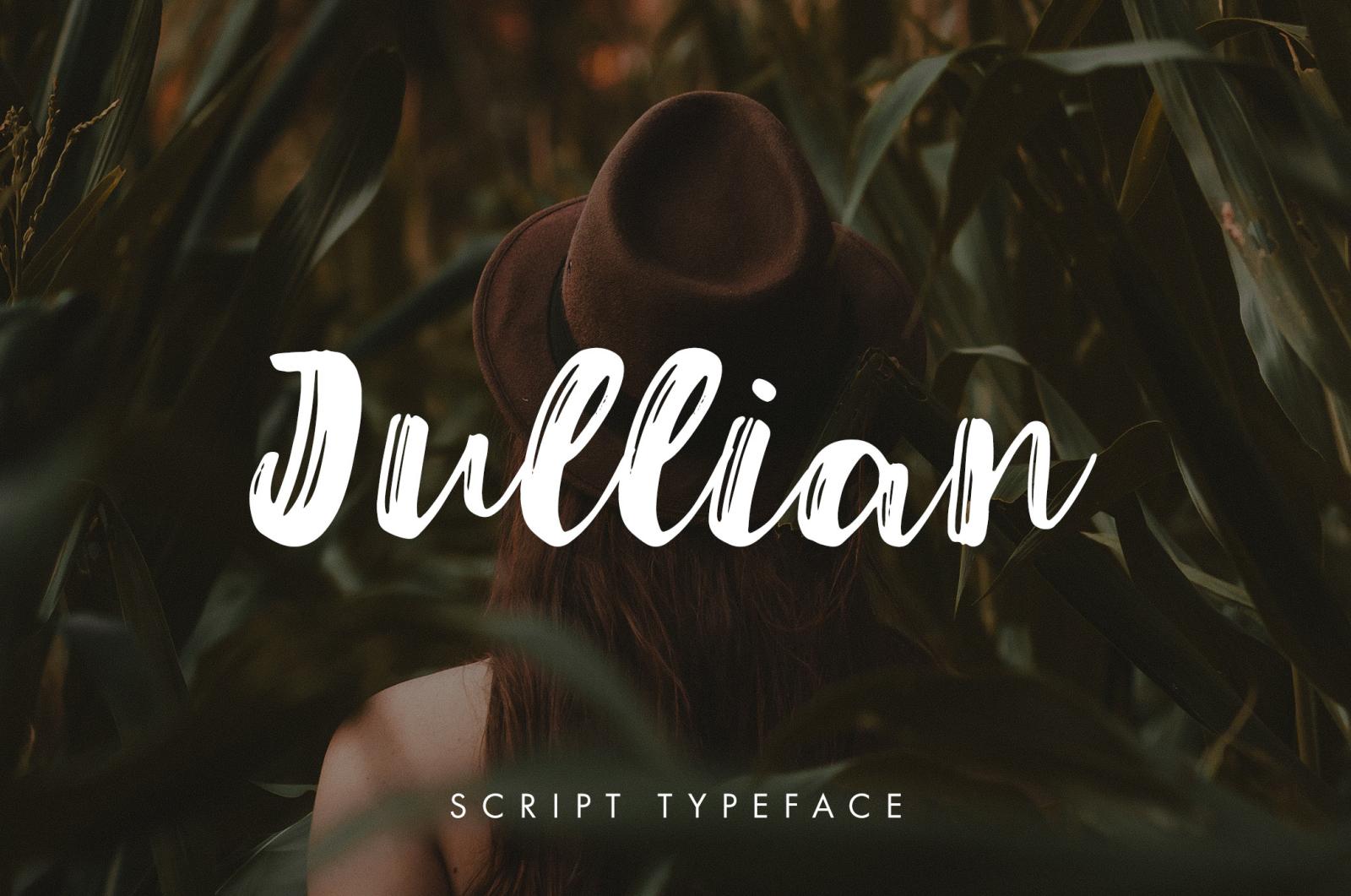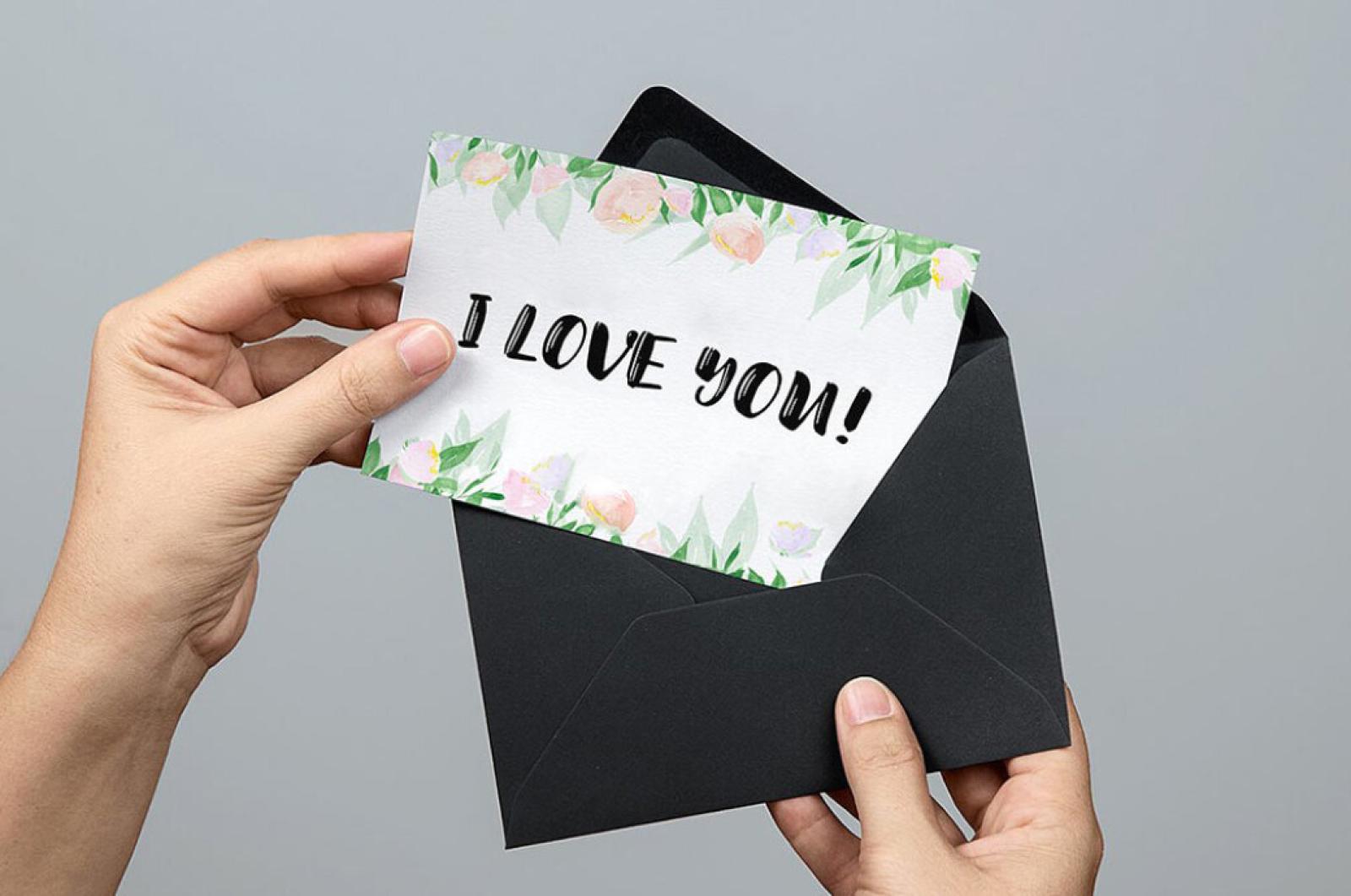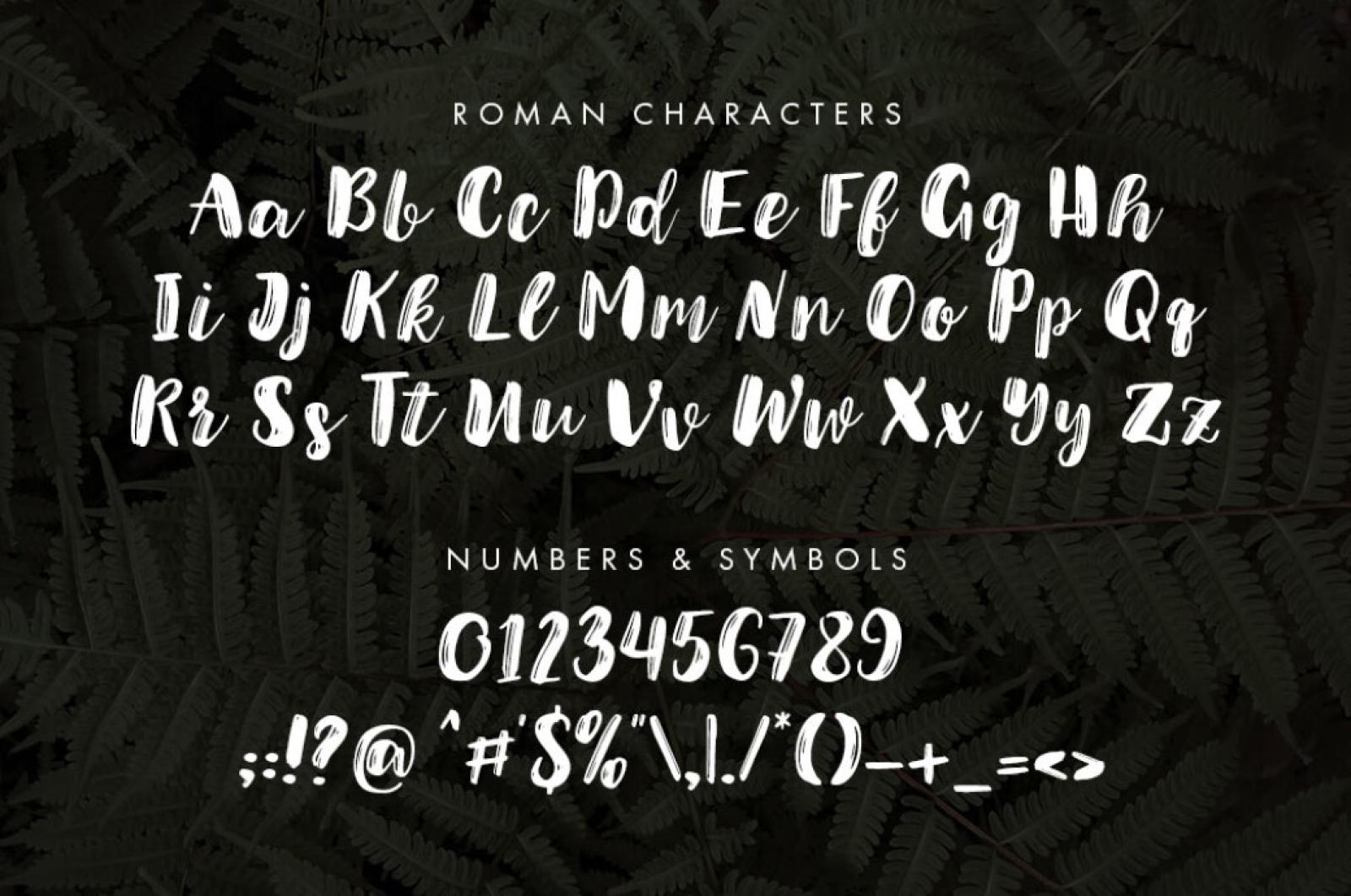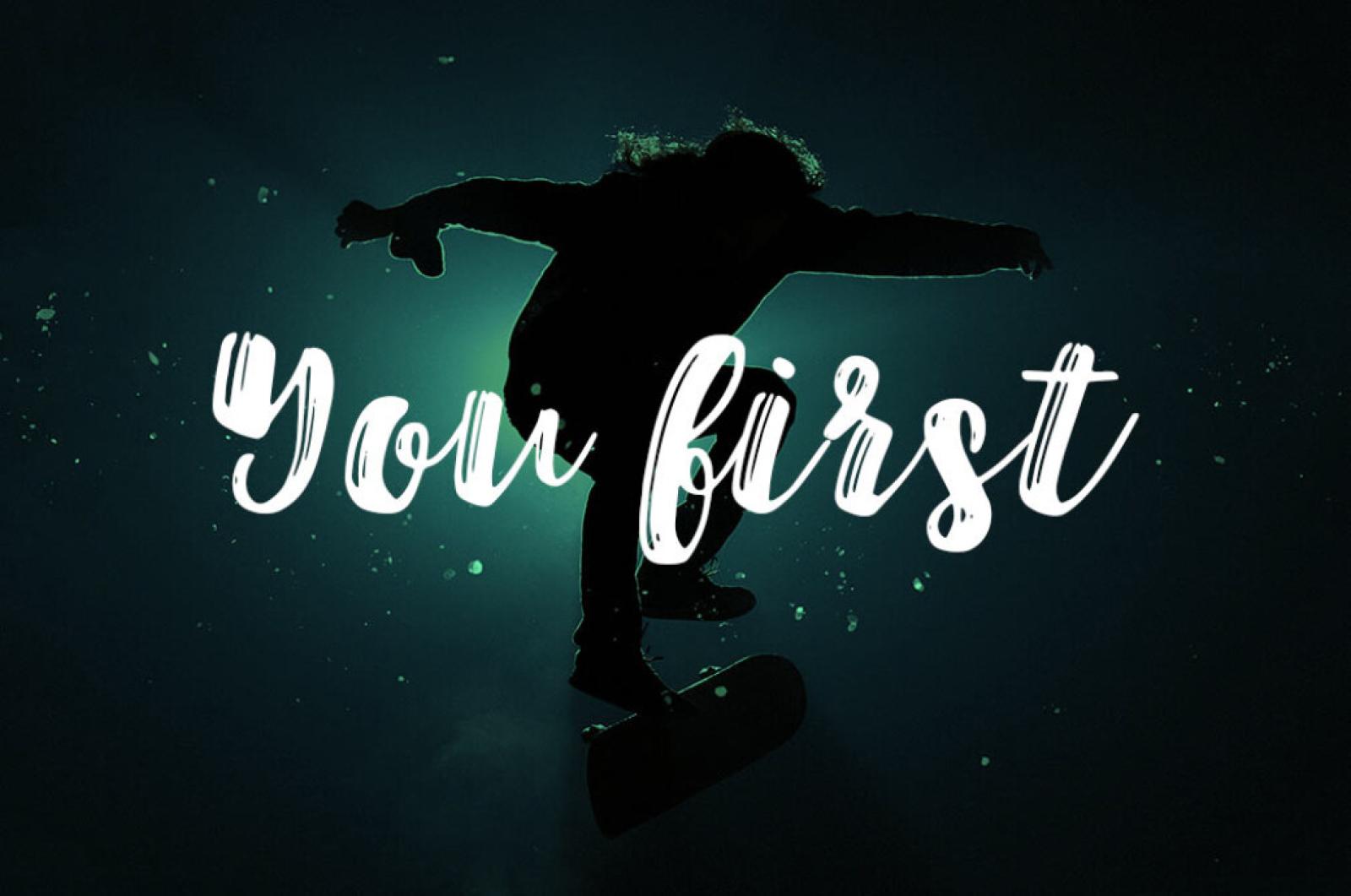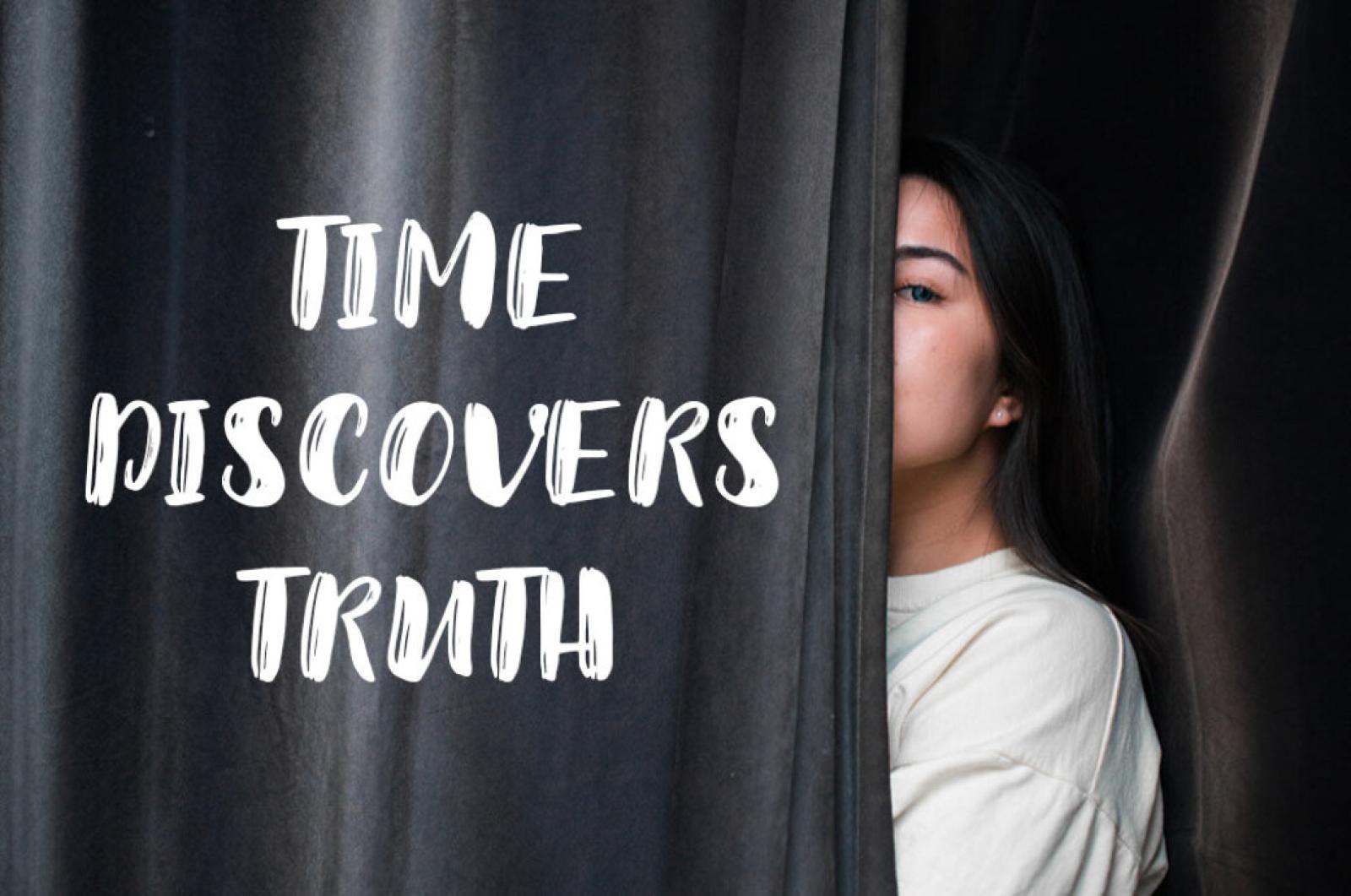
Jullian Script Typeface
From ordinary stuff to masterpieces! We invite you to discover a tender, yet so ecstatic script typeface, bringing some light aura of bloomy aerial watercolors.
Beautifully crafted lettering is gonna complement your artwork with an artistic touch, luckily it contains everything you may need for that: lowercase and uppercase letters, punctuation, and numerals. We often say the last ingredient you may lack for the unbeatable result is an idea, but it definitely not the case, as Jullian is a true embodiment of inspiration, and all the creativeness is right inside, in a message or sign you try it up for.